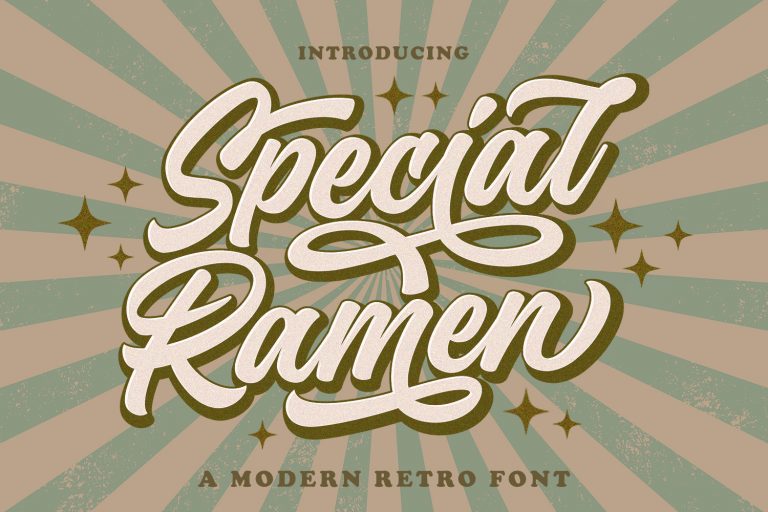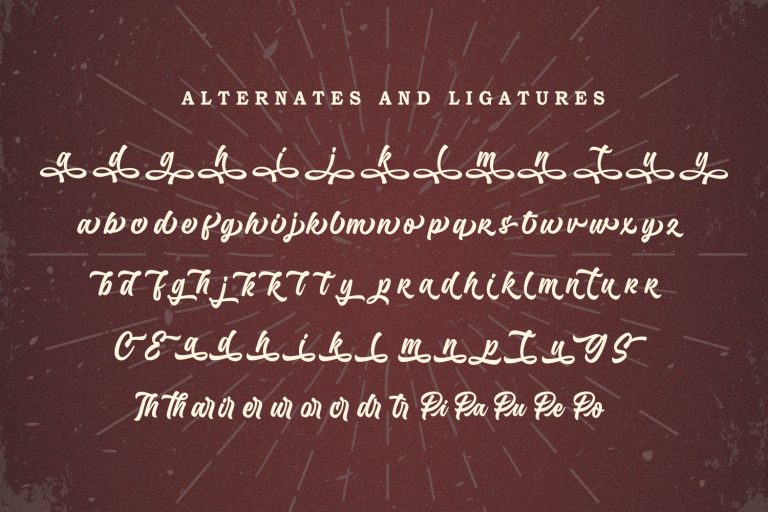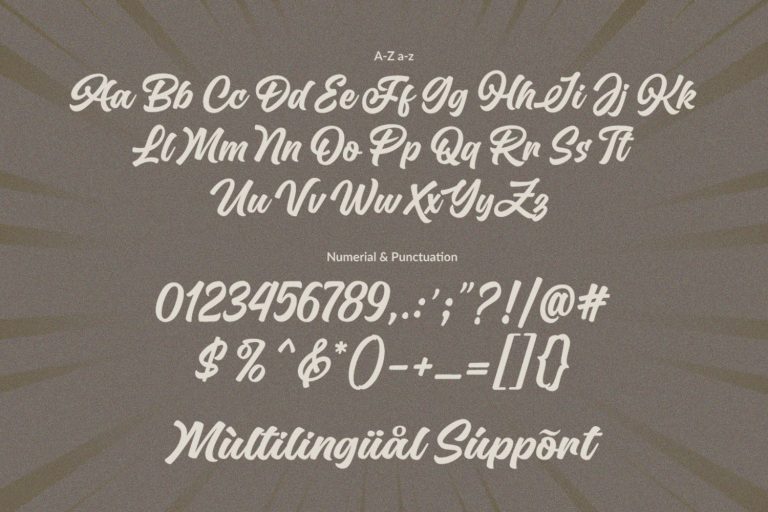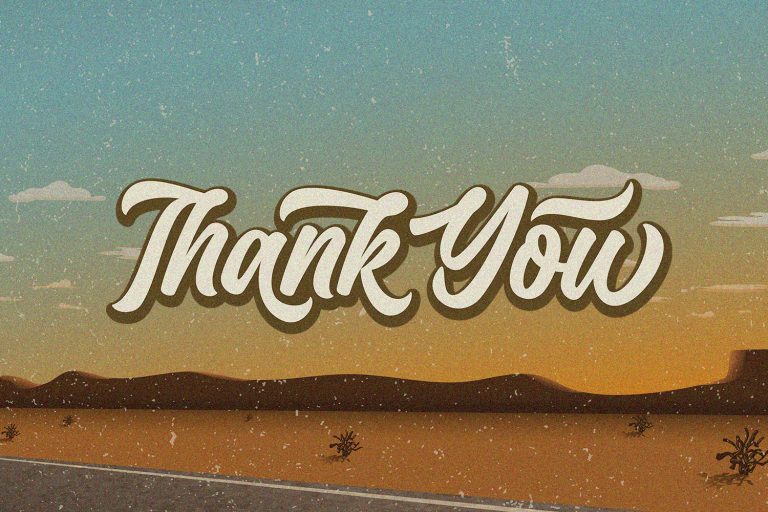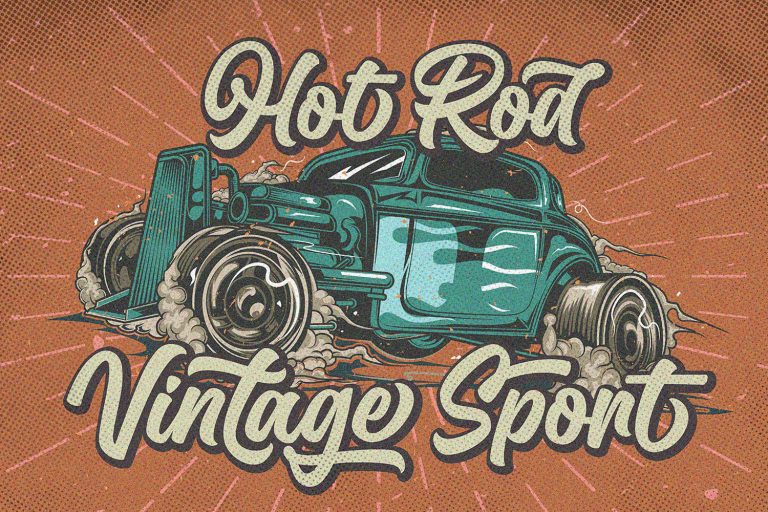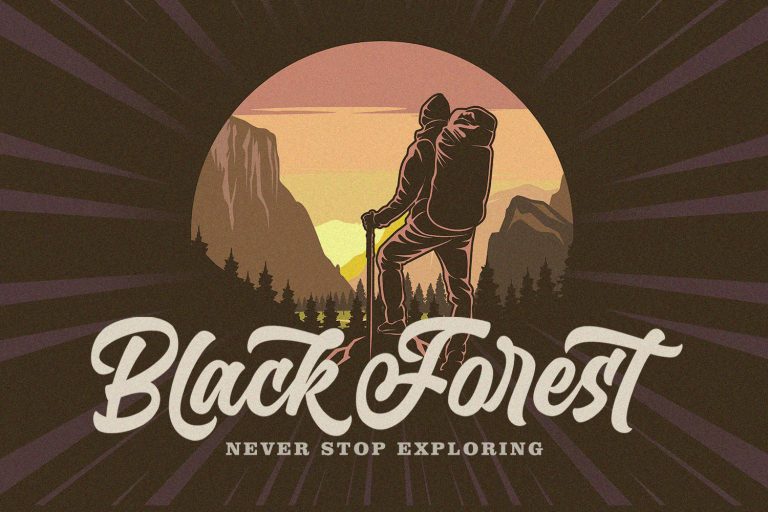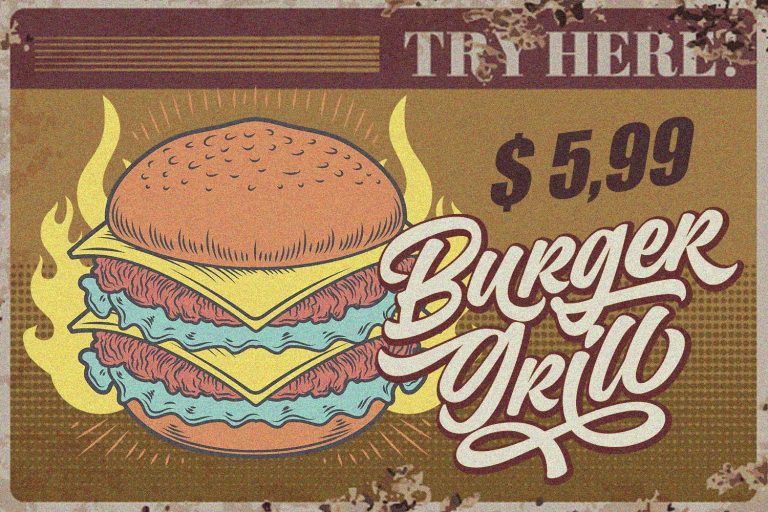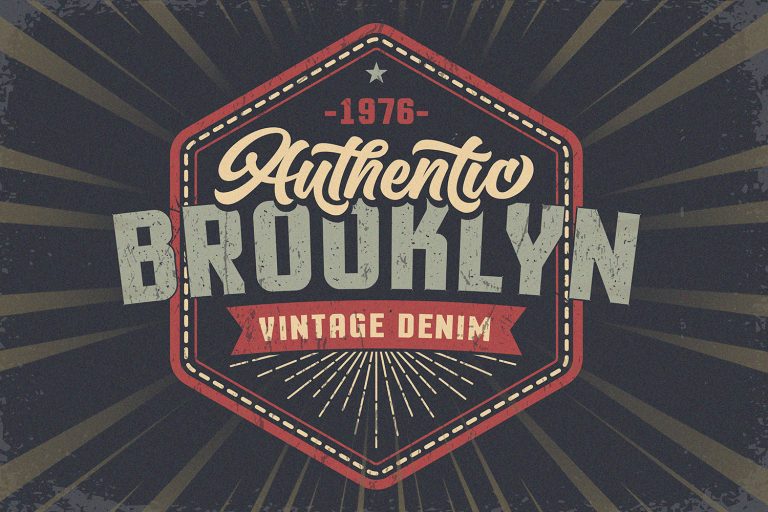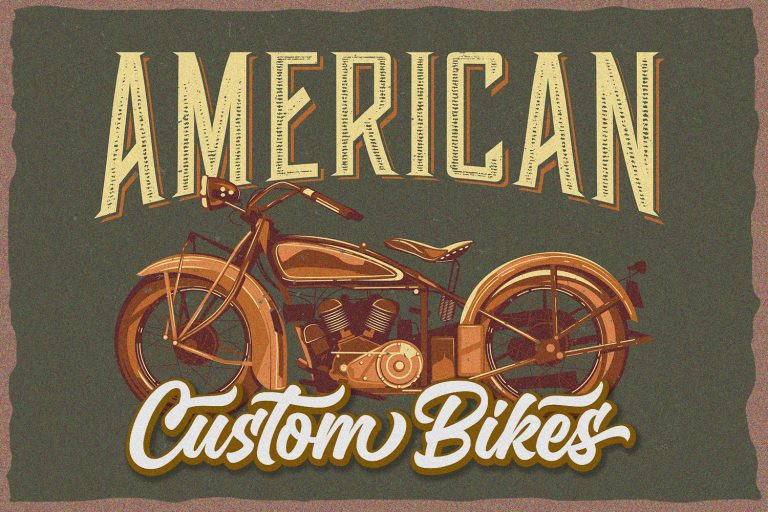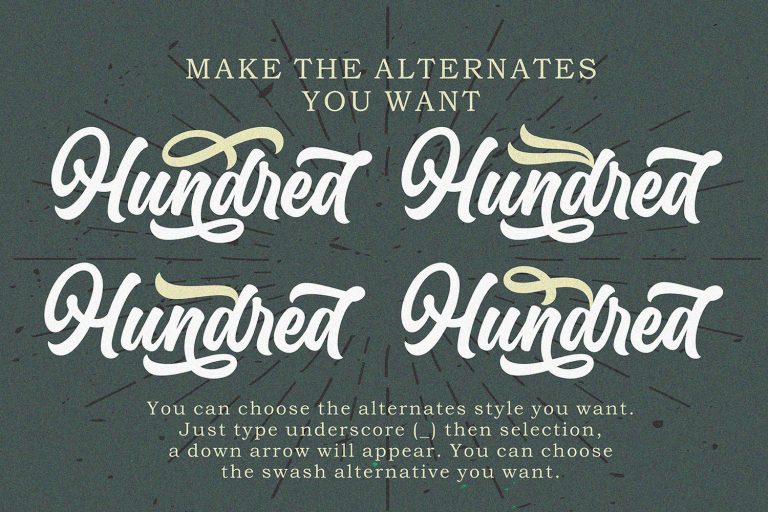
Special Ramen Font is an urban retro font with the style like a logotype lettering. was created to help you designing logotype or lettering style for your Brand or your clients, and you also can use it for designing all of the graphic stuff such as Wedding font, Fashion font, Invitation font, t-shirts font, websites font, Business font, Quotes font, headline font, branding font, advertising font, Signature Font, Social Media Font, Stationary Font, Product Packaging Font, Label Fonts, Photography signature, evnt font, poster font, party font, and various print and digital media with stylish touch.